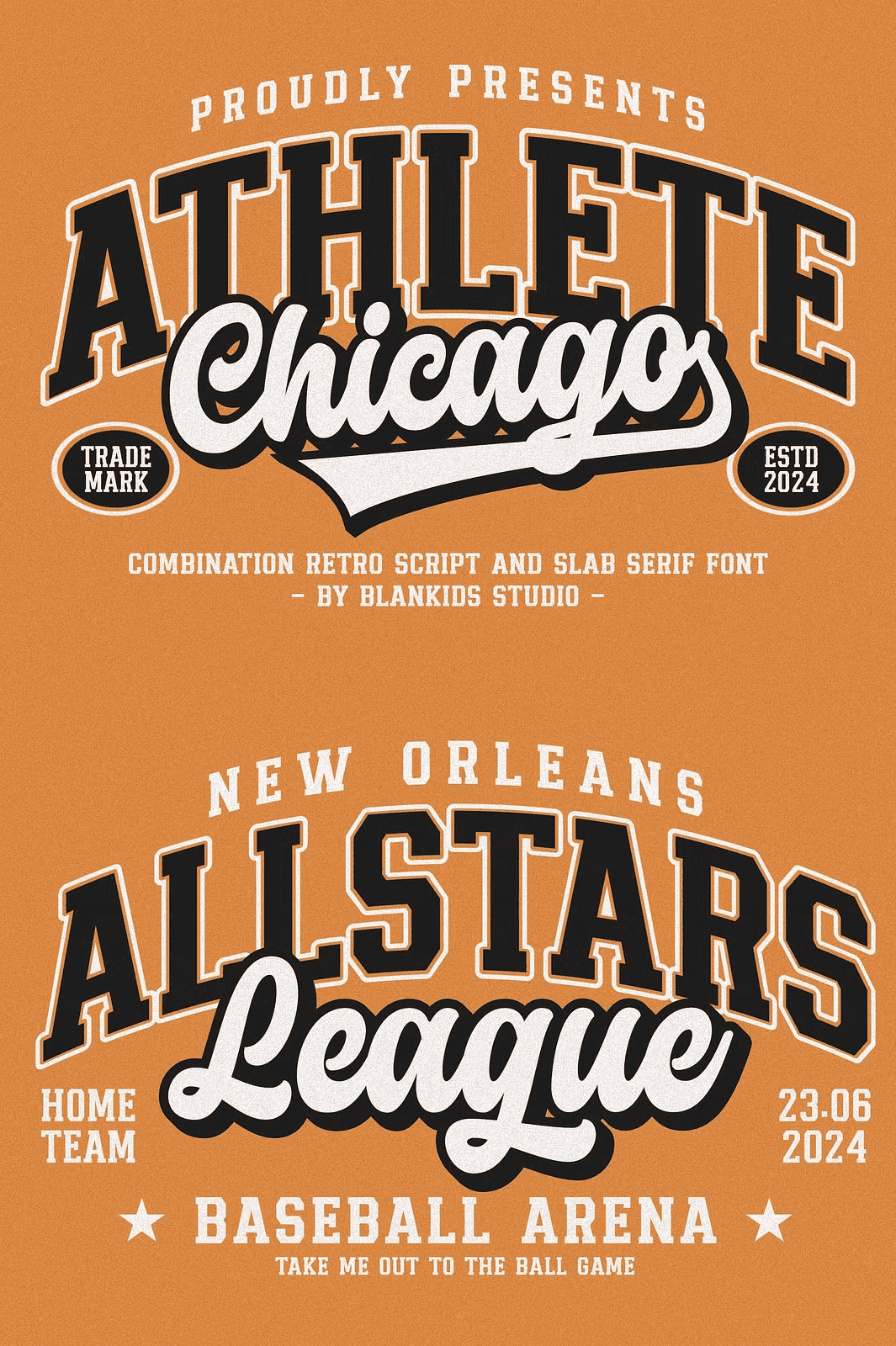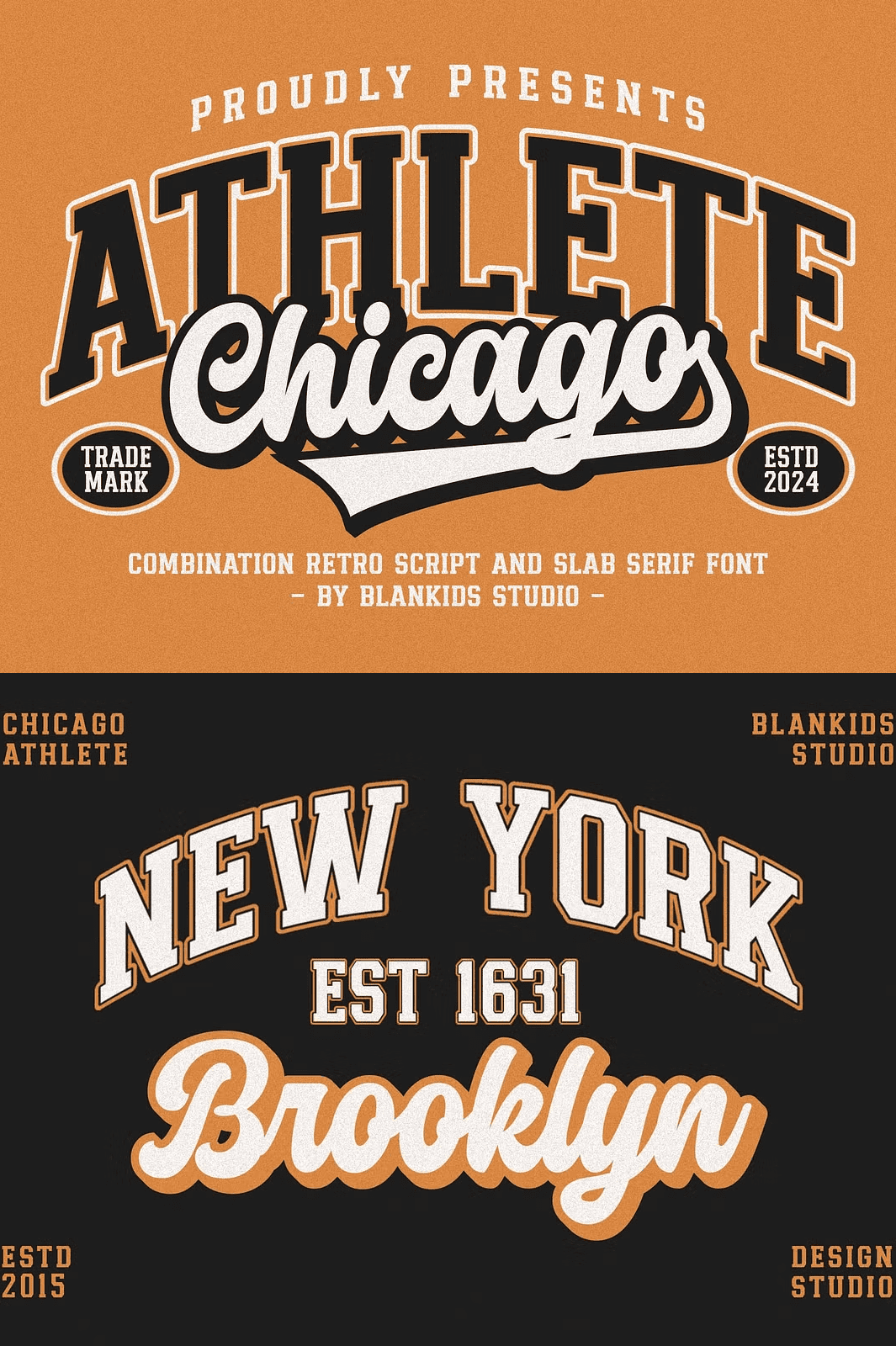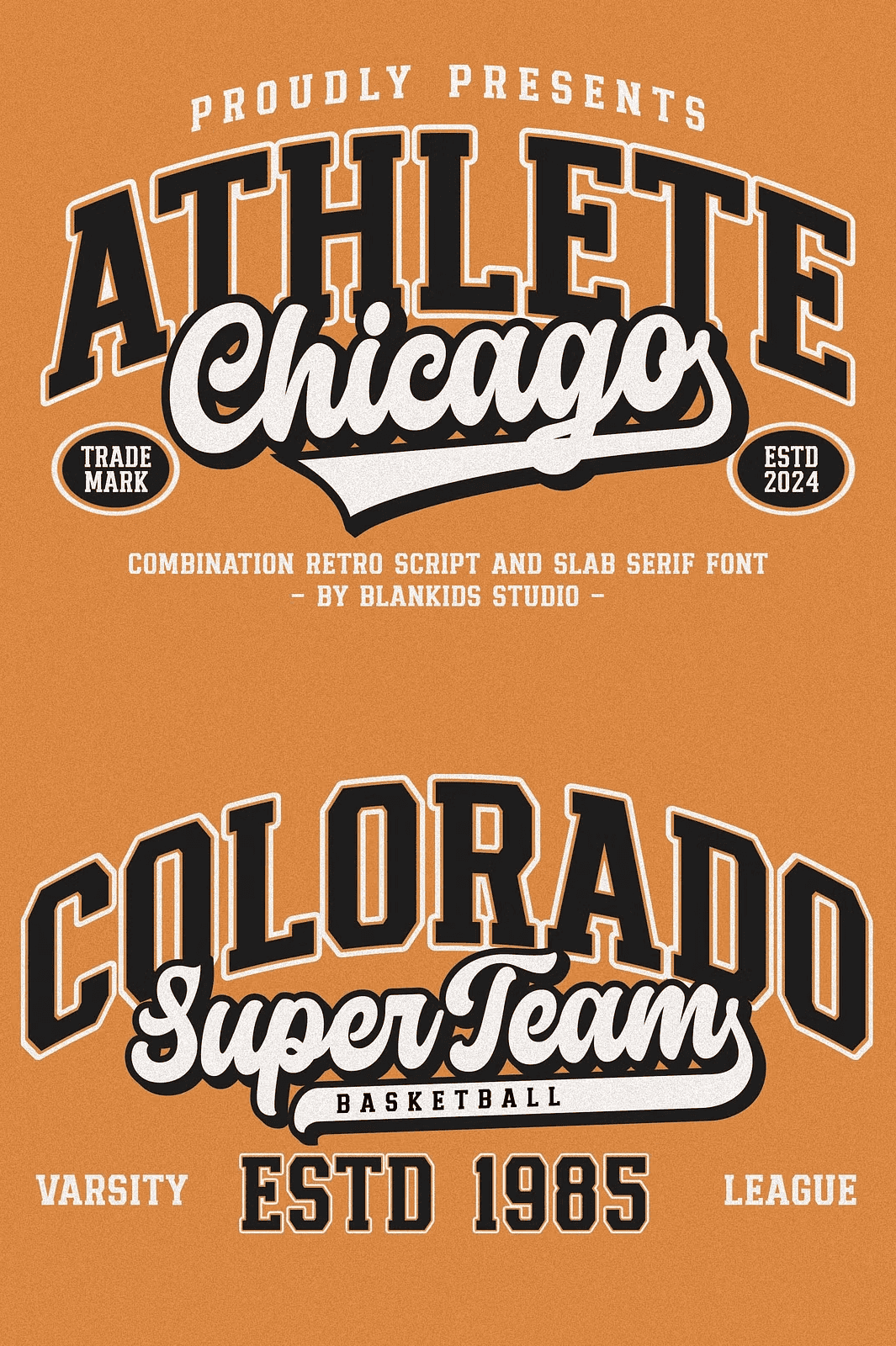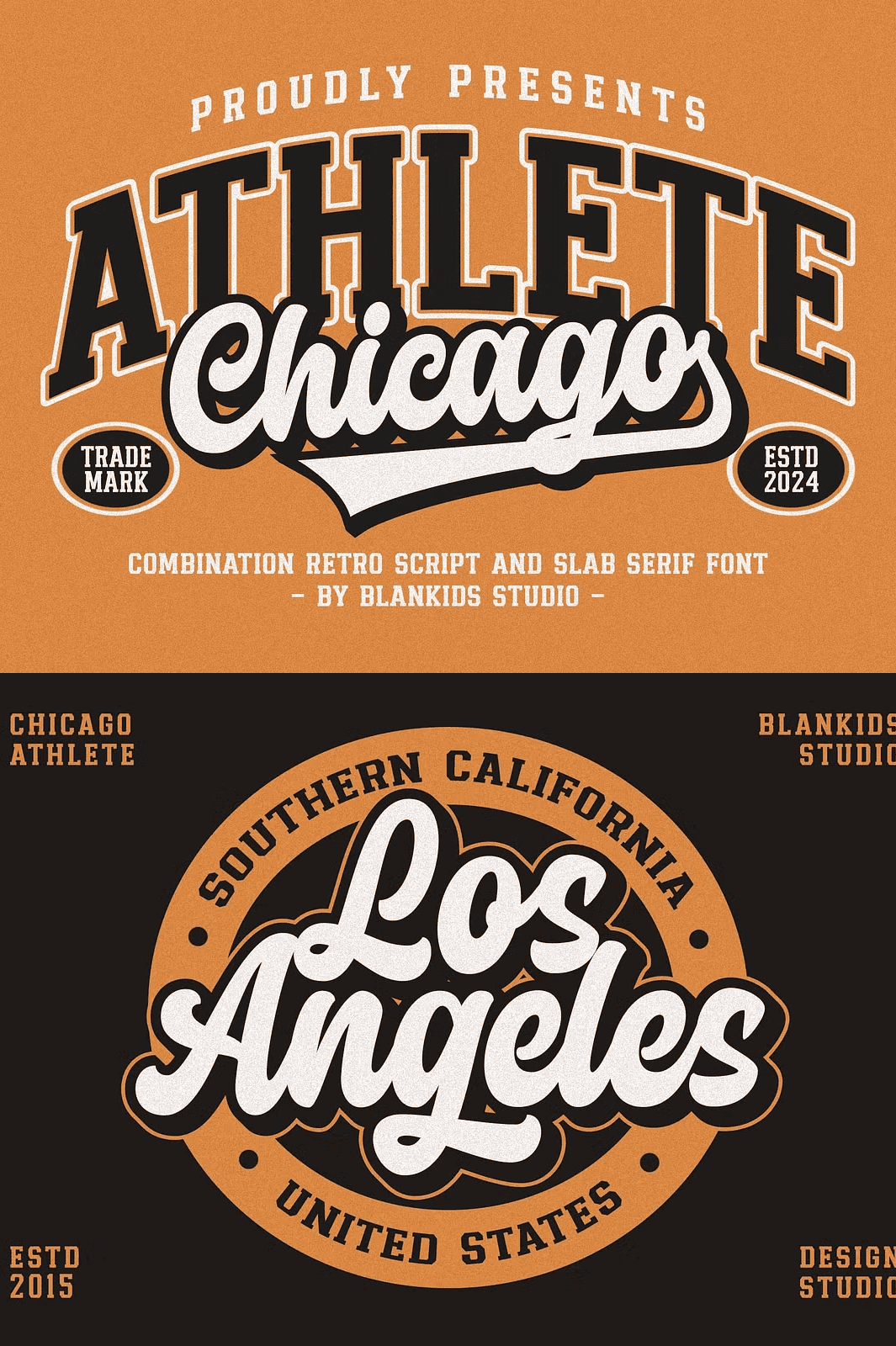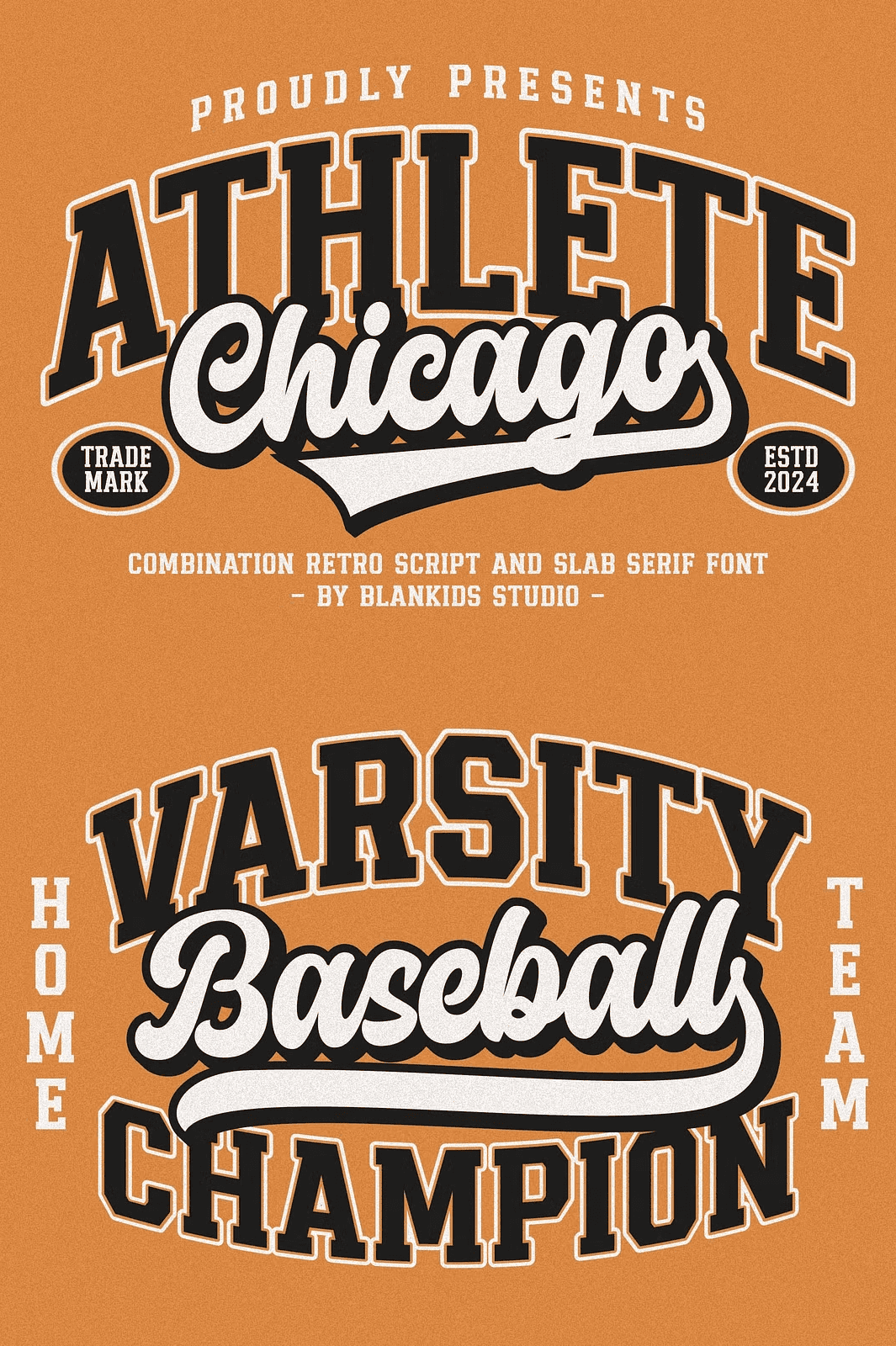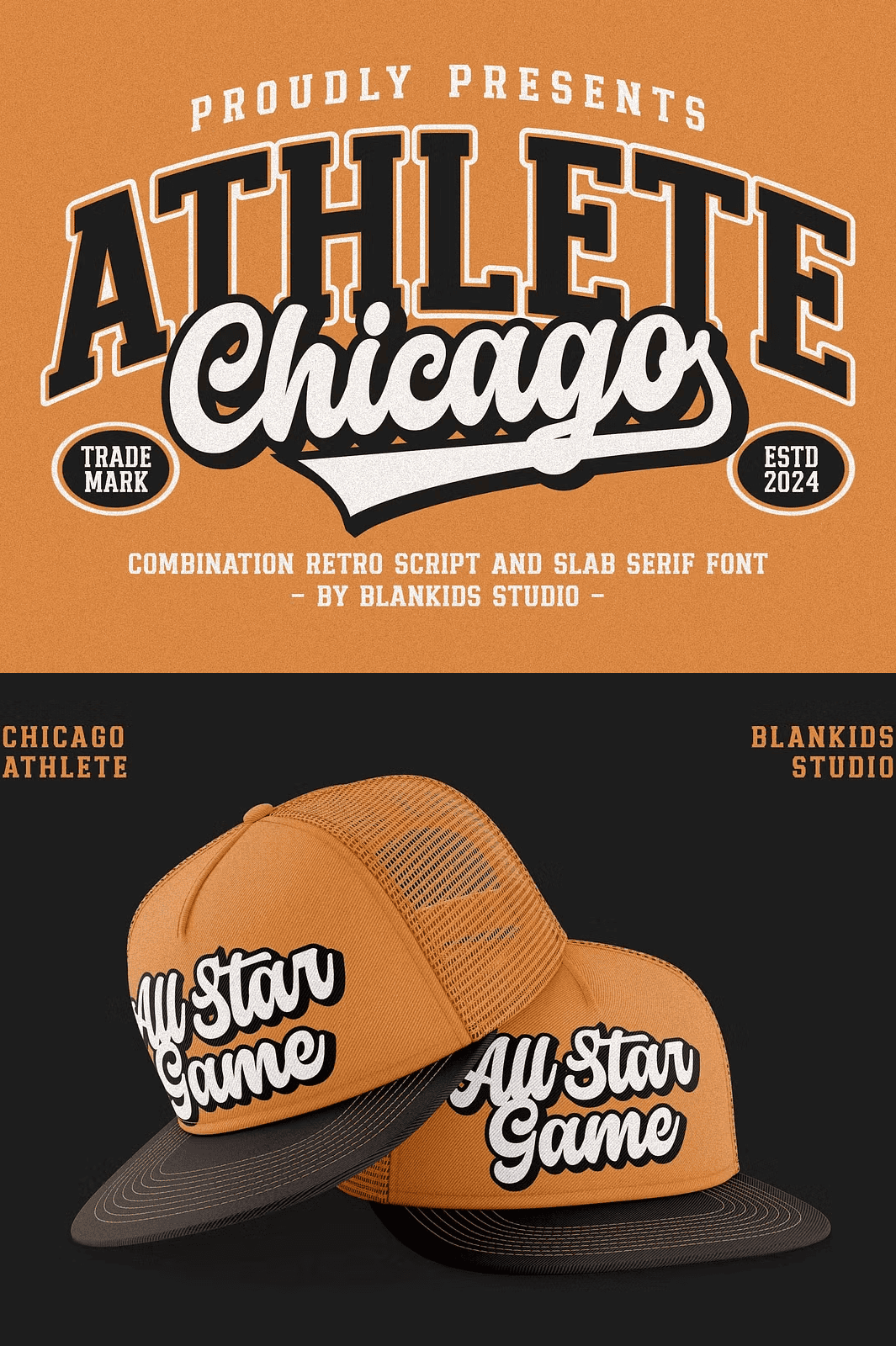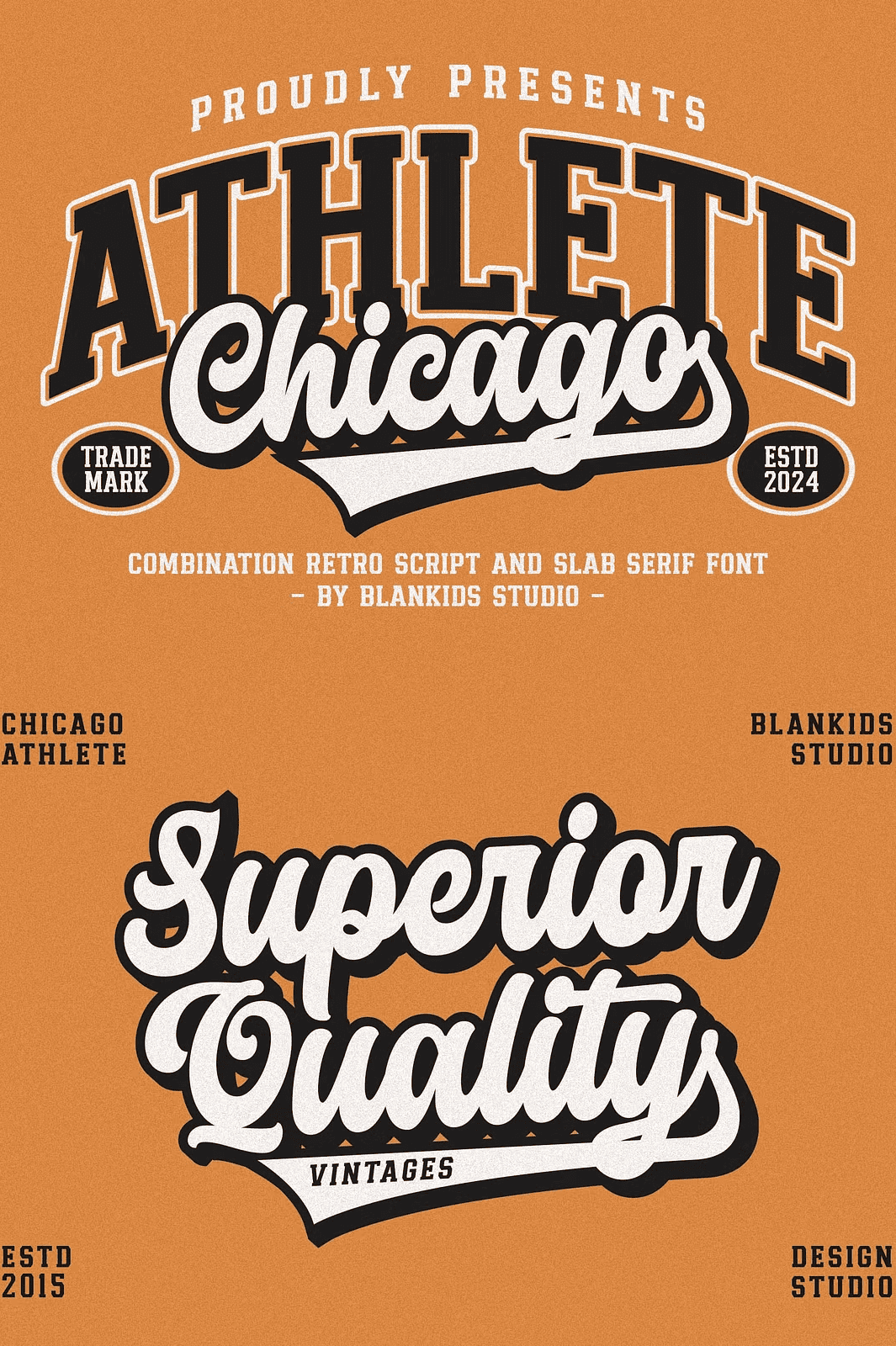
Chicago Athlete a Retro Sporty Font
Command the Spotlight with Authentic Retro Sports Vibe
Transform every project with **Chicago Athlete** — a high-octane retro sporty font combination crafted by **Blankids Studio** for designers who demand impact, energy, and vintage authenticity. This isn’t just a font — it’s a visual statement. Designed with the spirit of 1970s and 1980s athletics in mind, every letter pulses with the grit, motion, and boldness of legendary team logos, varsity jackets, and stadium signage.
Whether you’re building a brand identity, designing event posters, or launching a sporty apparel line, Chicago Athlete delivers fearless typography that grabs attention and won’t let go. Its sharp serifs, dynamic strokes, and classic character spacing make it instantly recognizable — just like the era it celebrates.
Unleash 4 Distinct Fonts for Maximum Creative Freedom
Chicago Athlete delivers versatility through a powerful set of four complementary fonts, each engineered for a specific design purpose:
• Chicago Athlete Script 1 – A fluid, bold script with traceable motion, ideal for headlines, branding tags, and logos that demand elegance with attitude.
• Chicago Athlete Script 2 – A slightly more stylized, energetic script with looping flourishes, perfect for promotions, merch designs, and event posters.
• Chicago Athlete Slab Serif 1 – A thick, blocky slab serif with a sharp, modern edge, built for bold statements, packaging labels, and high-impact headlines.
• Chicago Athlete Slab Serif 2 – A more rugged variant of the slab serif, featuring textured imperfections and deeper contrast, ideal for graffiti-style designs, banners, and industrial branding.
Together, these four fonts create a flexible ecosystem that grows with your creative vision — from delicate branding to aggressive visual identities.
Chicago Athlete isn’t just about style — it’s built to function. Every font includes:
• Full uppercase and lowercase Latin letters
• Complete set of numerals and punctuation marks
• OpenType features for advanced typographic control
• Consistent kerning and spacing across all weights
OpenType features unlock additional typographic options like alternate characters, ligatures, and stylistic sets — giving you full control over your visual narrative.
Chicago Athlete is more than a font — it’s a design tool for professionals who deliver powerful results. Use it to:
• Build Unforgettable Brand Identities – Launch schools, teams, gyms, or sportswear lines with instantly memorable visual signatures.
• Design High-Impact Posters & Promotions – Capture attention at conventions, sports events, or music shows with bold, energetic typography.
• Create Eye-Catching Packaging – Give your products a retro edge that stands out on shelves and in online stores.
• Enhance Merchandise & Apparel – Print on jerseys, caps, mugs, and tote bags with a look that feels hand-pressed, authentic, and bold.
• Power Digital & Social Media Content – Generate dynamic banners, YouTube thumbnails, and Instagram posts that command engagement.